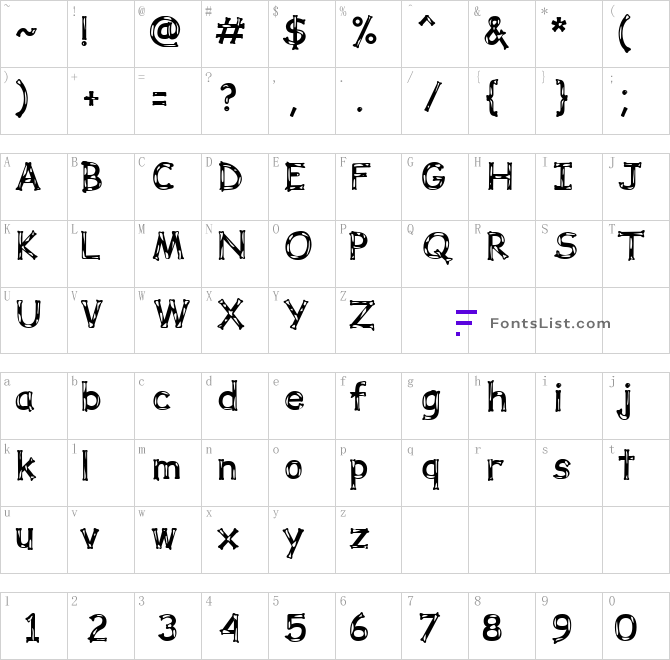
- Font Name:Dalmata Dream
Dalmata-Dream-Bold.ttf is a very beautiful artistic font, Dalmata-Dream-Bold.ttf is widely used in the design and printing of various books and pictures,Dalmata-Dream-Bold.ttf has a strong visual impact,Dalmata-Dream-Bold.ttf is a commonly used font in newspapers, magazines and books, and is used in posters, e-commerce Poster design, store design, logo design, font design and other fields.Dalmata-Dream-Bold.